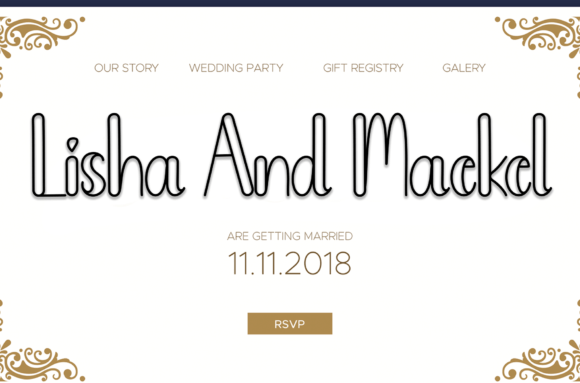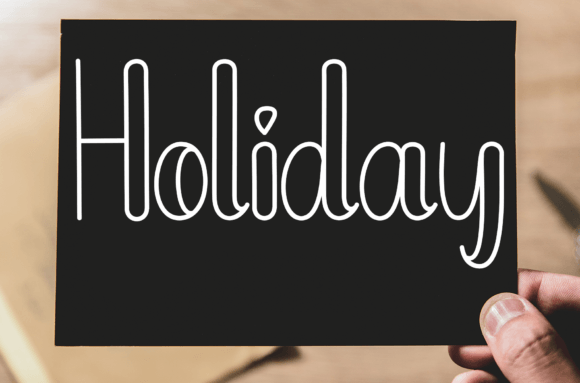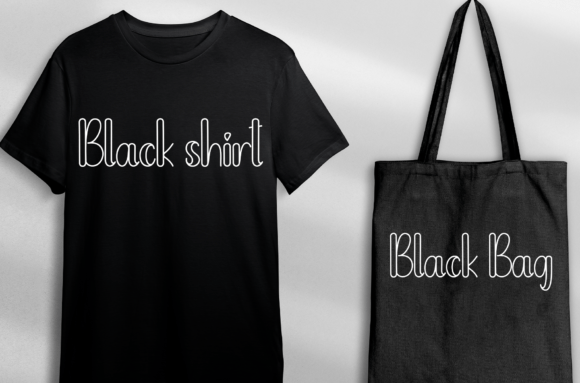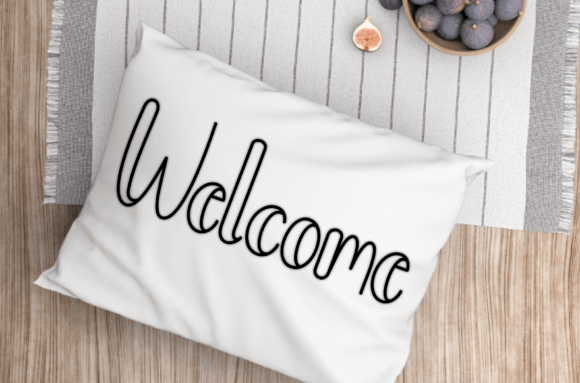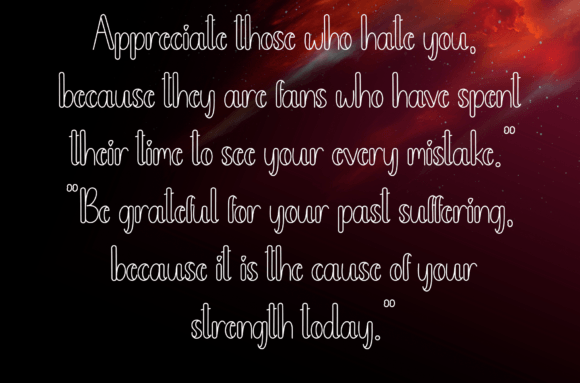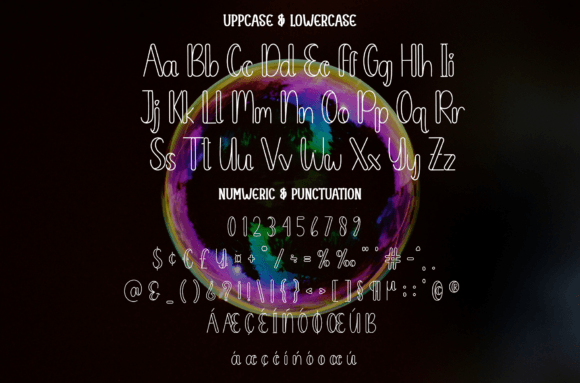
Buble Font: Add a Sweet and Friendly Touch to Your Designs
Are you looking for a font that can add a playful and whimsical touch to your designs? Look no further than Buble Font! This sweet and friendly handwritten font is perfect for creating wedding invitations, cards, and other designs that require a fun and creative element. In this article, we’ll take a closer look at Buble Font, its features, and how you can use it to elevate your designs.
What is Buble Font?
Buble Font is a beautiful, handwritten font that is designed to add a touch of sweetness and friendliness to your designs. Its creative and versatile nature makes it ideal for a wide range of projects, from wedding invitations and cards to posters, flyers, and more. The font’s playful and bubbly style is sure to capture the attention of your audience and leave a lasting impression.
Key Features of Buble Font
- Handwritten style: Buble Font has a beautiful, handwritten style that gives it a personal and unique touch.
- Sweet and friendly: The font’s sweet and friendly nature makes it perfect for designs that require a playful and approachable tone.
- Creative and versatile: Buble Font is highly versatile and can be used for a wide range of projects, from wedding invitations to posters and flyers.
- Easily readable: The font is designed to be easily readable, making it perfect for body text and headings.
Use Cases for Buble Font
Buble Font is perfect for a wide range of design projects, including:
- Wedding invitations: Add a touch of sweetness and romance to your wedding invitations with Buble Font.
- Cards and stationery: Create beautiful and playful cards and stationery with Buble Font.
- Posters and flyers: Use Buble Font to create eye-catching posters and flyers that grab attention.
- Social media graphics: Add a playful touch to your social media graphics with Buble Font.
Tips for Using Buble Font
Here are some tips for using Buble Font effectively in your designs:
- Pair with other fonts: Buble Font pairs well with other fonts, such as sans-serif fonts, to create a beautiful contrast.
- Use for headings and titles: Buble Font is perfect for headings and titles, where you want to add a touch of personality and whimsy.
- Experiment with colors: Buble Font looks great in a variety of colors, so don’t be afraid to experiment and find the perfect color scheme for your design.
Buble Font is a sweet and friendly handwritten font that is perfect for adding a playful touch to your designs. Its creative and versatile nature makes it ideal for a wide range of projects, from wedding invitations to posters and flyers. With its easily readable style and beautiful handwritten design, Buble Font is sure to become a favorite in your font collection. So why not give it a try and see how it can elevate your designs?
FAQs About Buble Font
- What is Buble Font?: Buble Font is a sweet and friendly handwritten font designed for creative and versatile use.